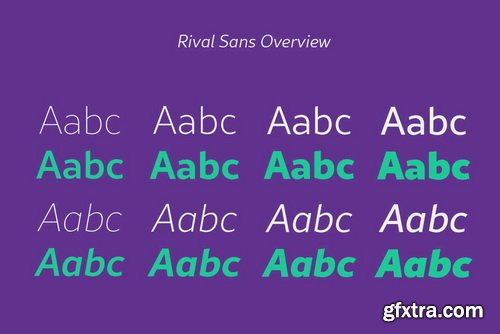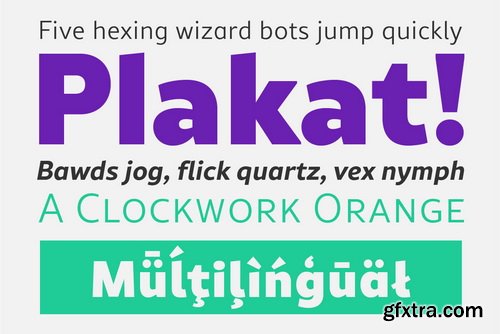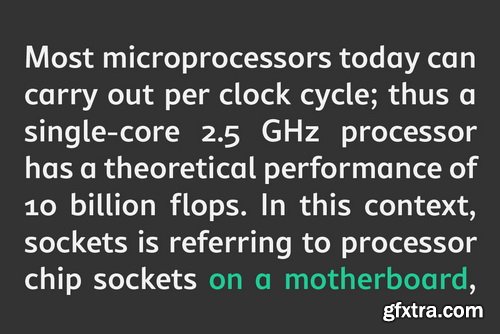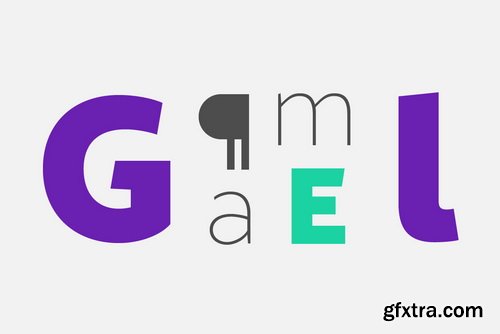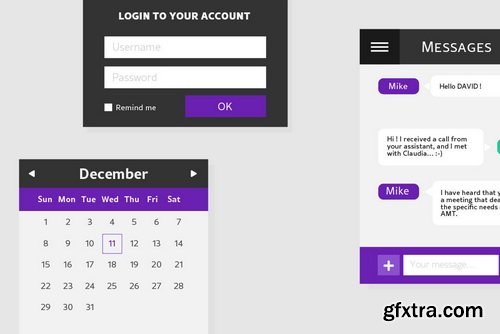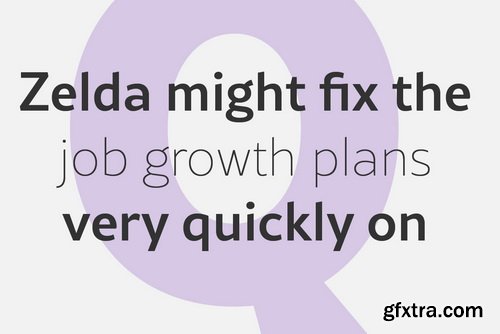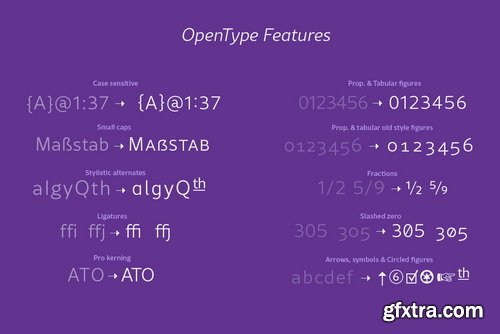
- Rival sans is clean sans serif font family and it characterized by excellent readability and its contemporary aspect. It provides advanced typographical support with features such as case sensitive forms, small caps, ligatures, alternate characters, fractions, slashed zero, circled figures, pro kerning...It comes with a complete range of figure set options – oldstyle and lining figures, each in tabular and proportional widths.
- It comes in 8 weights with corresponding italics and it's suited for multiple purposes including editorial use, web font, apps, digital ads, ebook, and also for advertising, long text, packaging and branding.
- As a modern sans serif font family, Rival Sans has true italics to give more style in long texts. It has also an extended character set to support Central and Eastern European as well as Western European languages.